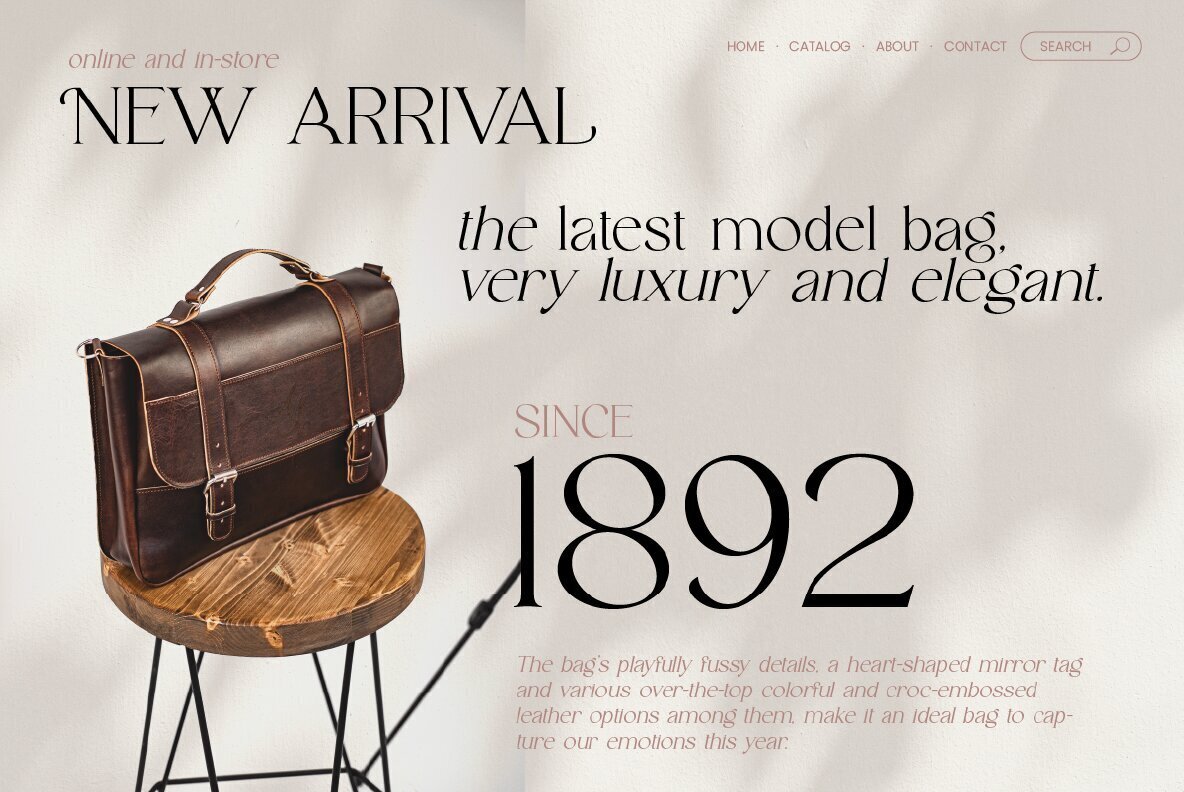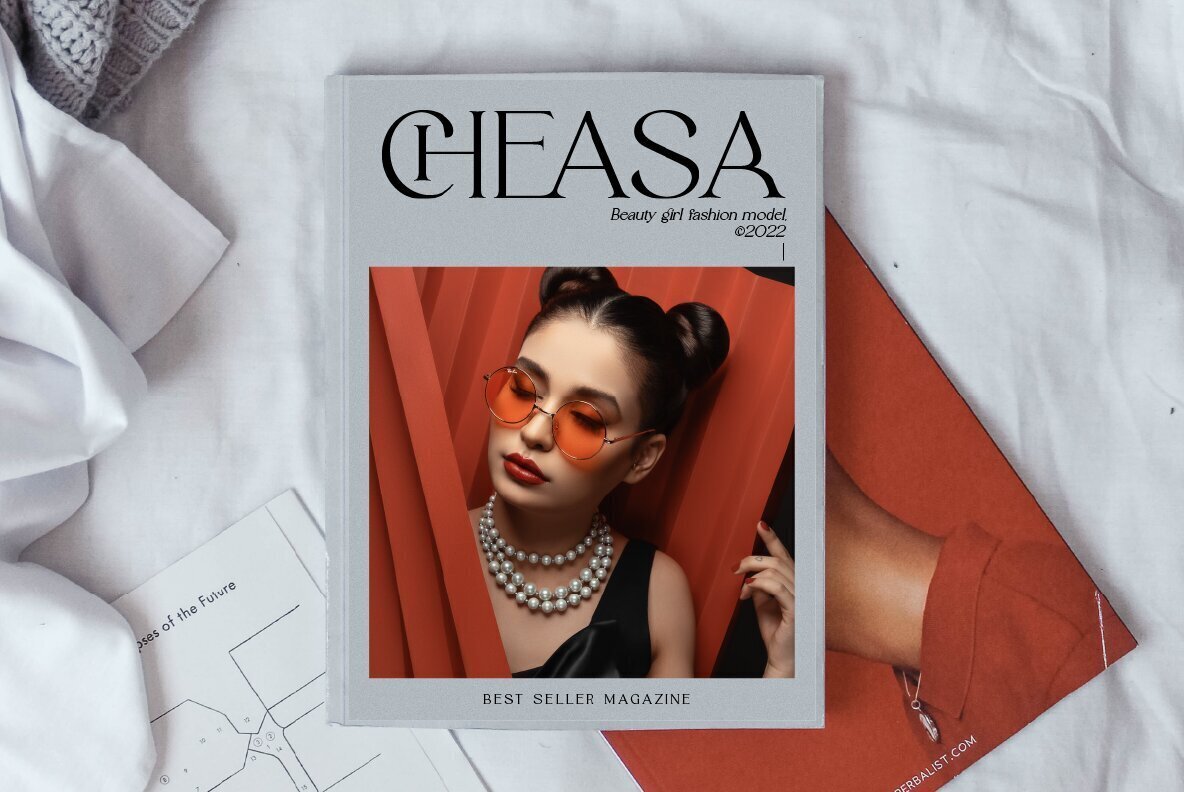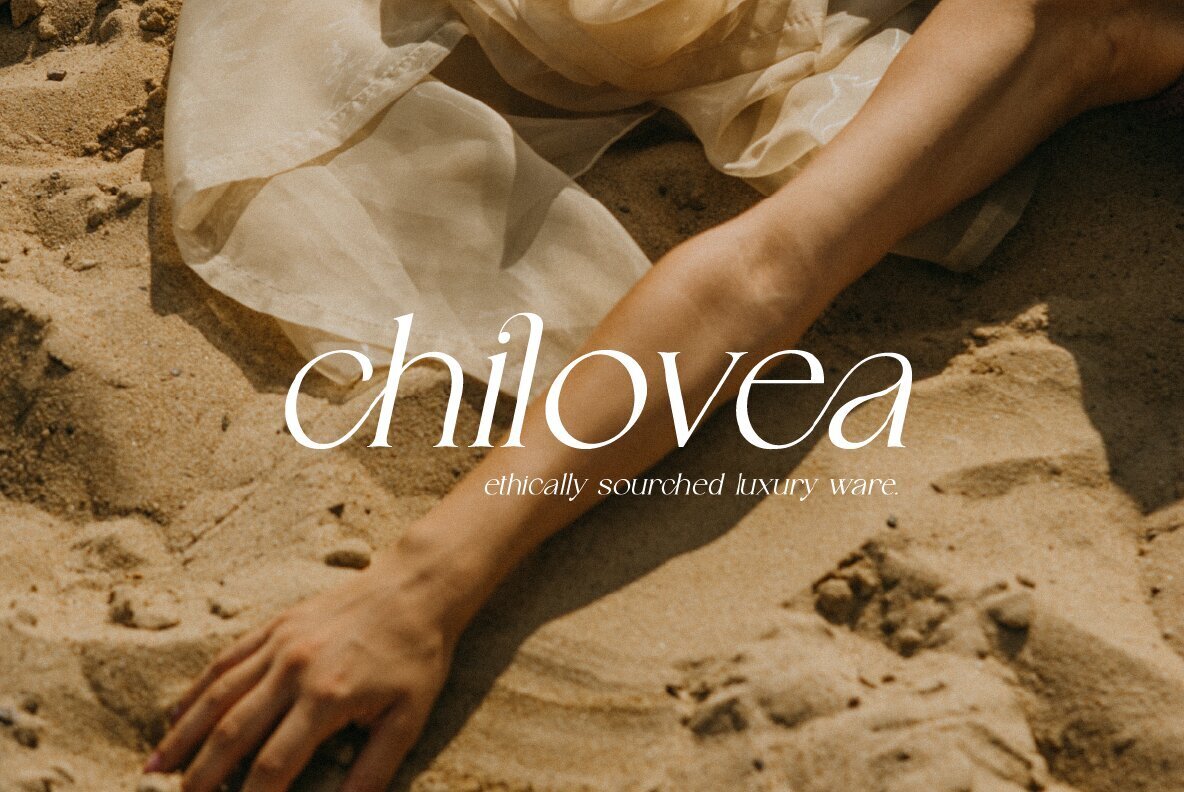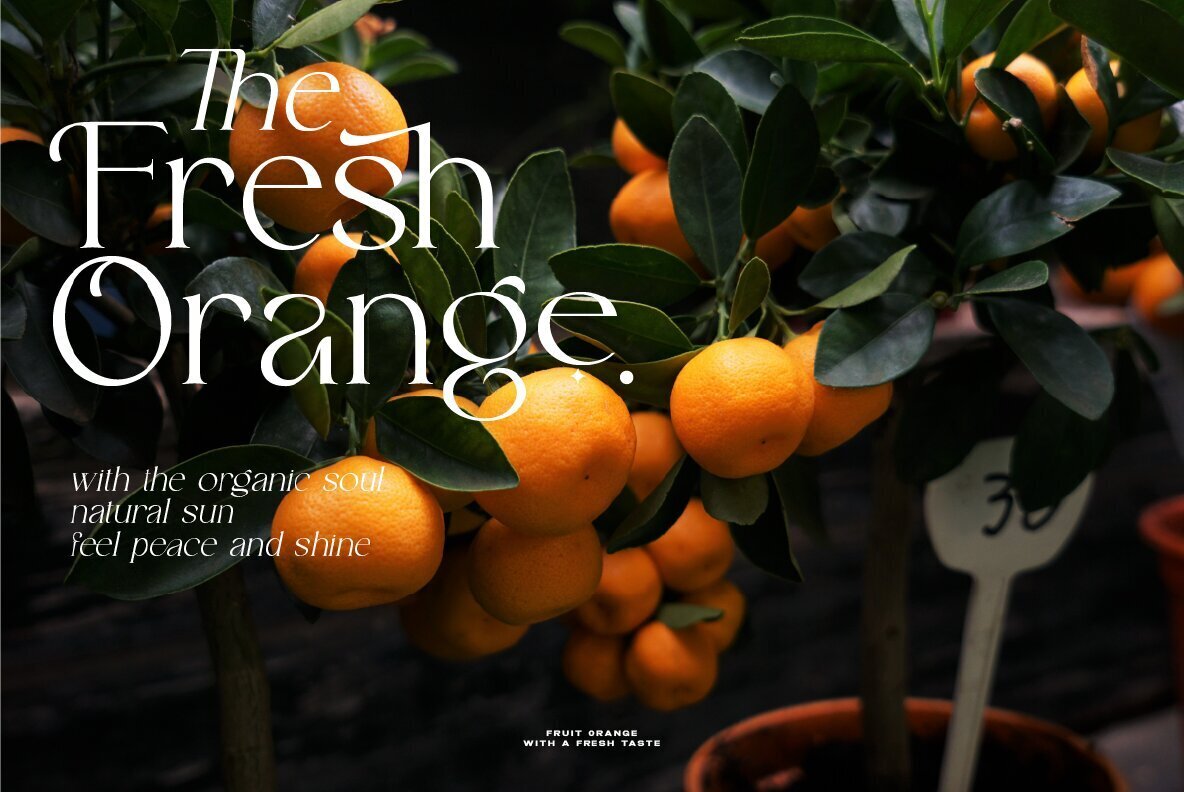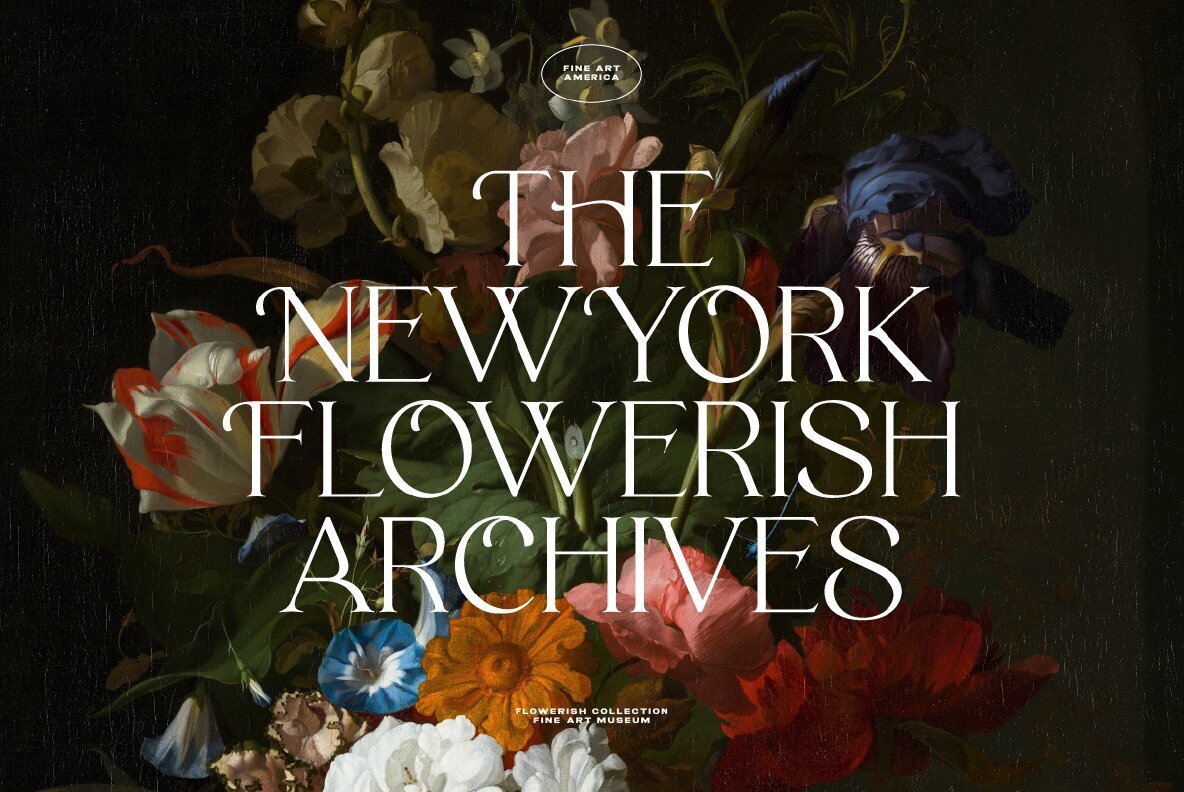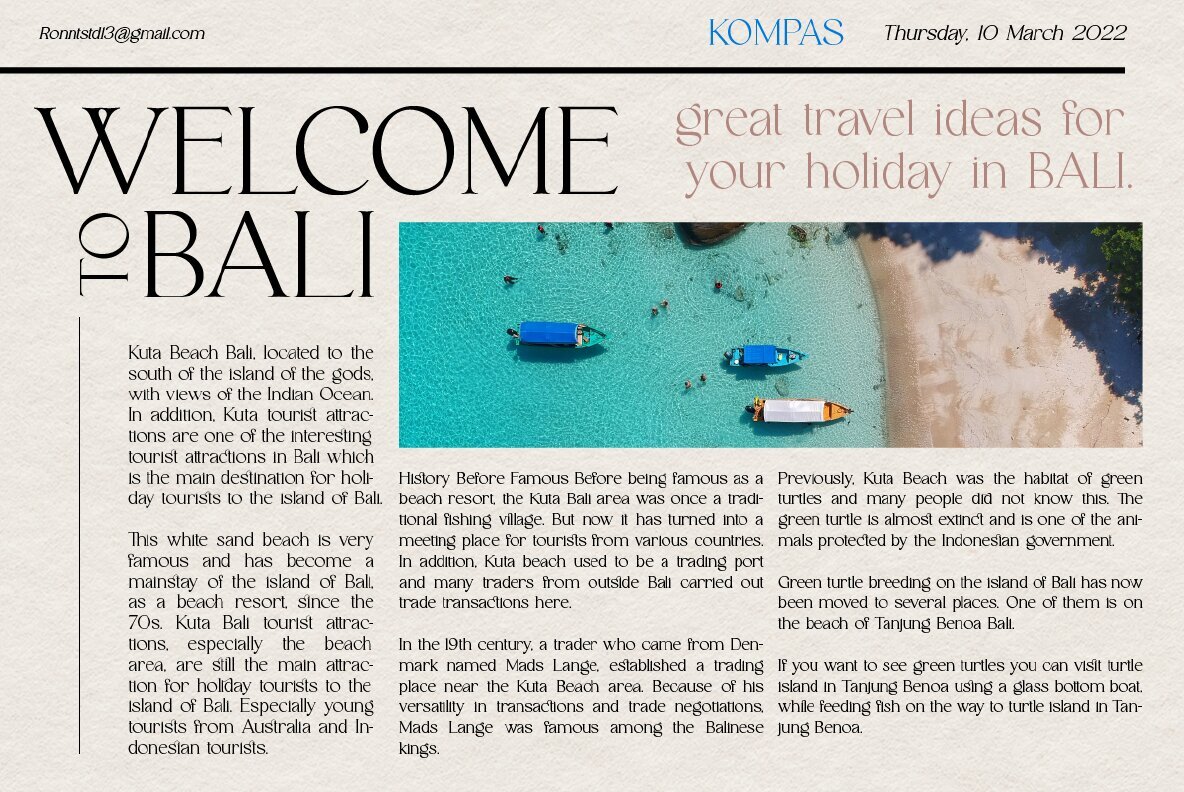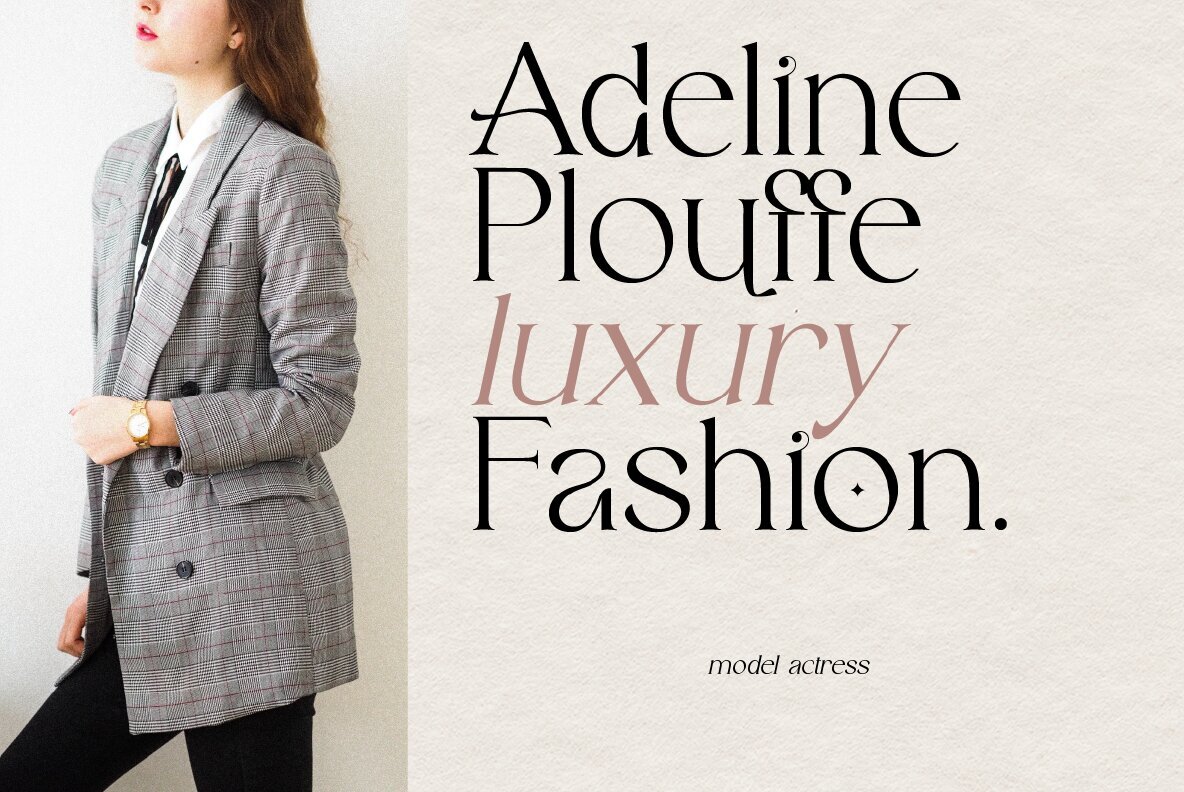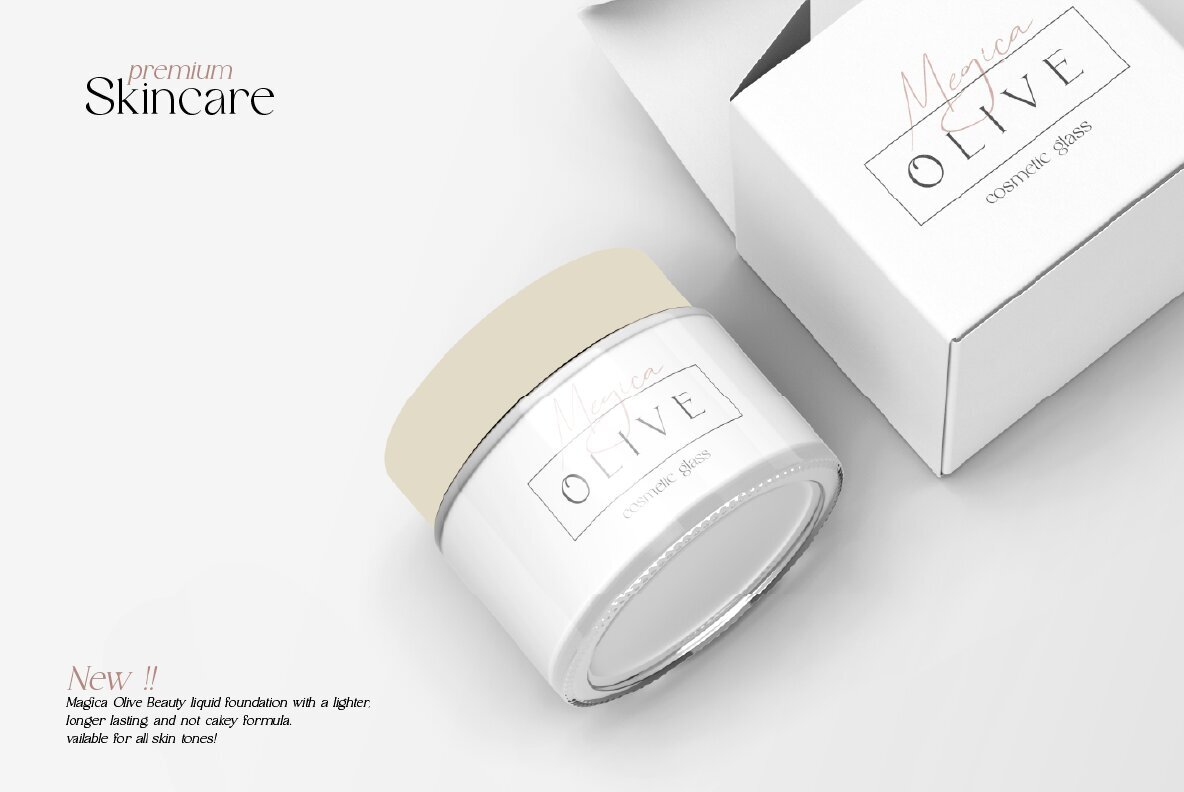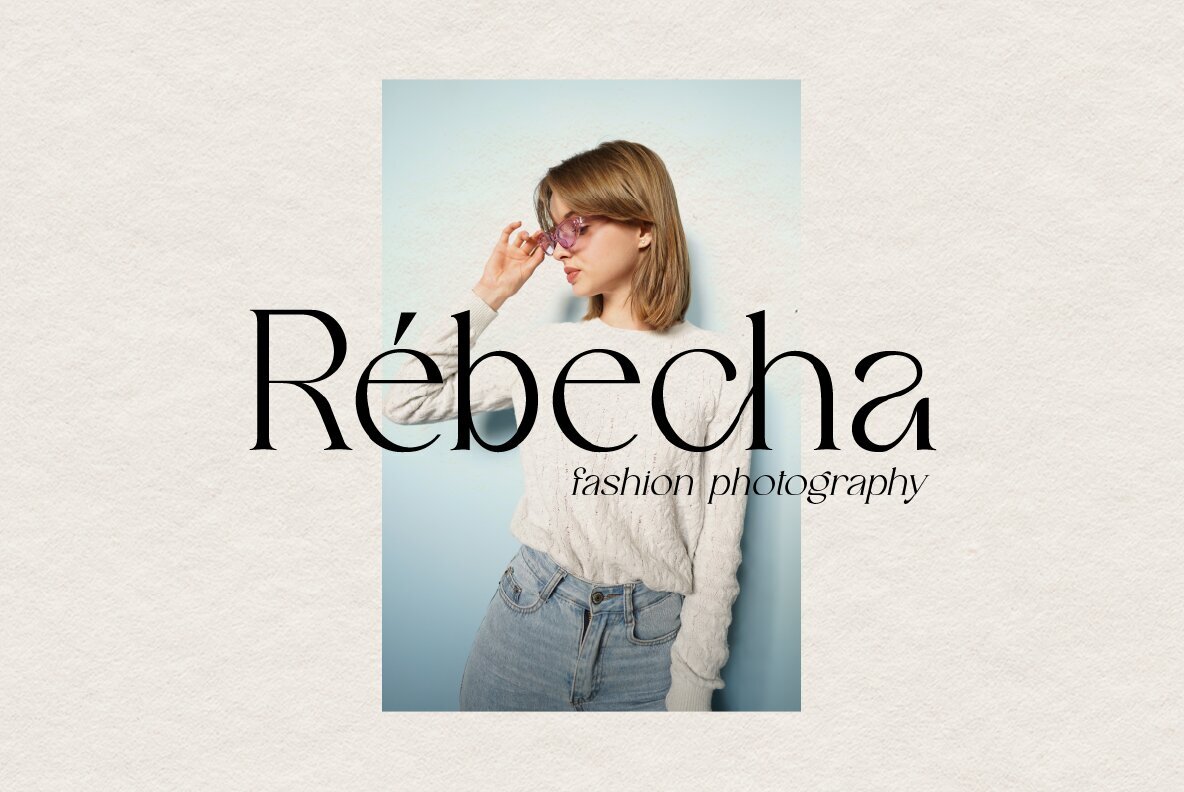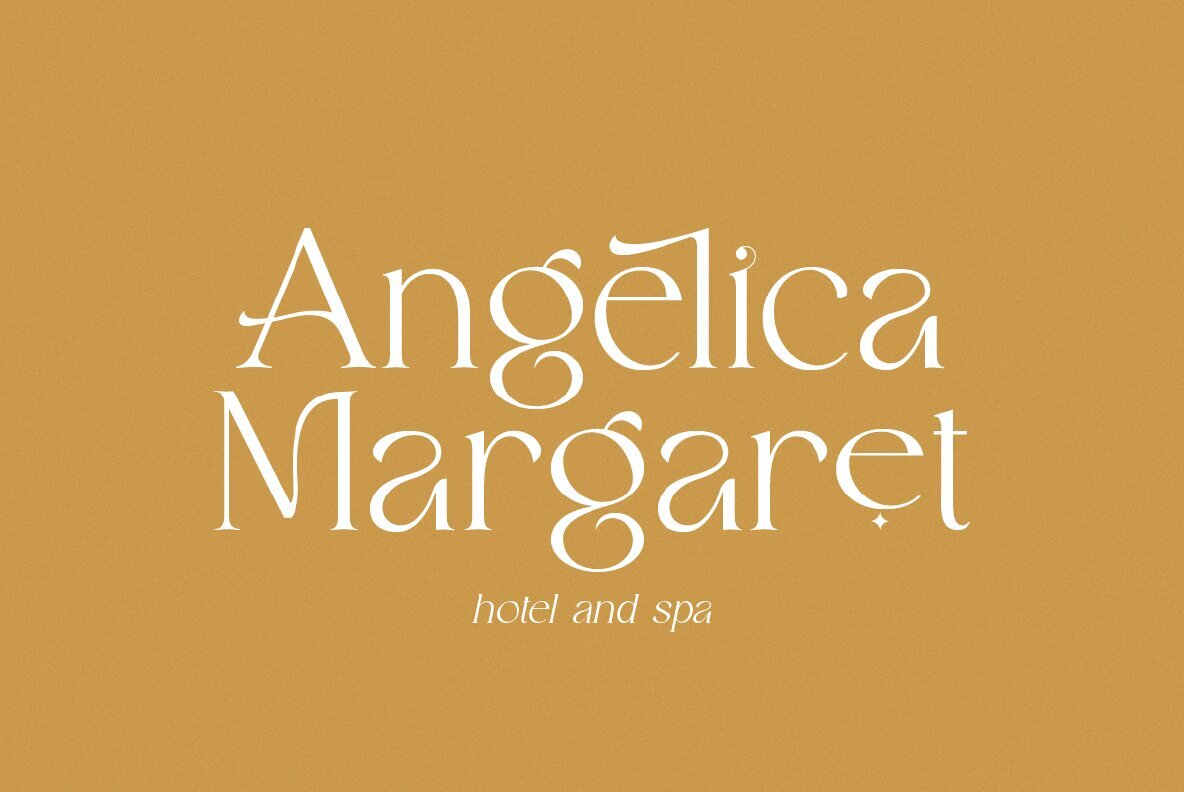
Robecha Daniera Font
Robecha Daniera Regular
Robecha Daniera Italic
The Robecha Daniera font, conceived by Rony Rizki Jaya, embodies luxury and elegance with its exquisite serif design. This font is meticulously crafted, achieving a harmonious blend of sophistication and clarity that enhances any creative endeavor. Whether you are designing elegant logos, distinctive branding, travel promotions, or layout magazines, Robecha Daniera proves to be a versatile choice. It also excels in elevating the aesthetics of beauty product packaging, adding finesse to quotes, and serving as a stylish text overlay on diverse backgrounds.Robecha Daniera: Luxurious Serif for Elegant Creations